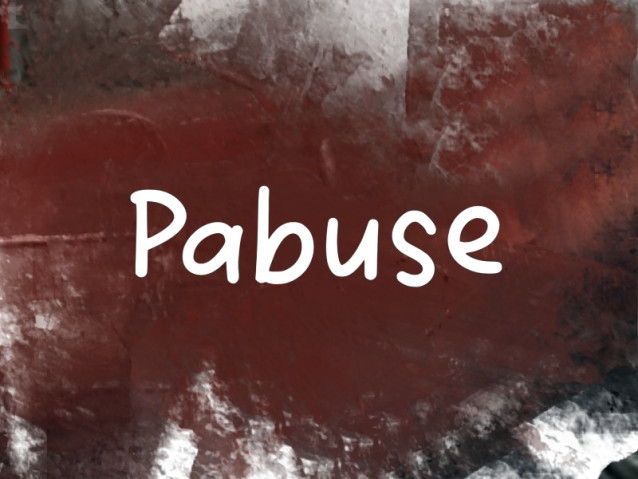
Pabuse Font
Pabuse Font is a simple and modern display font suitable for quotes, logos, headings, titles, and many more. Use it on any of your creative projects, and your designs will become outstanding!